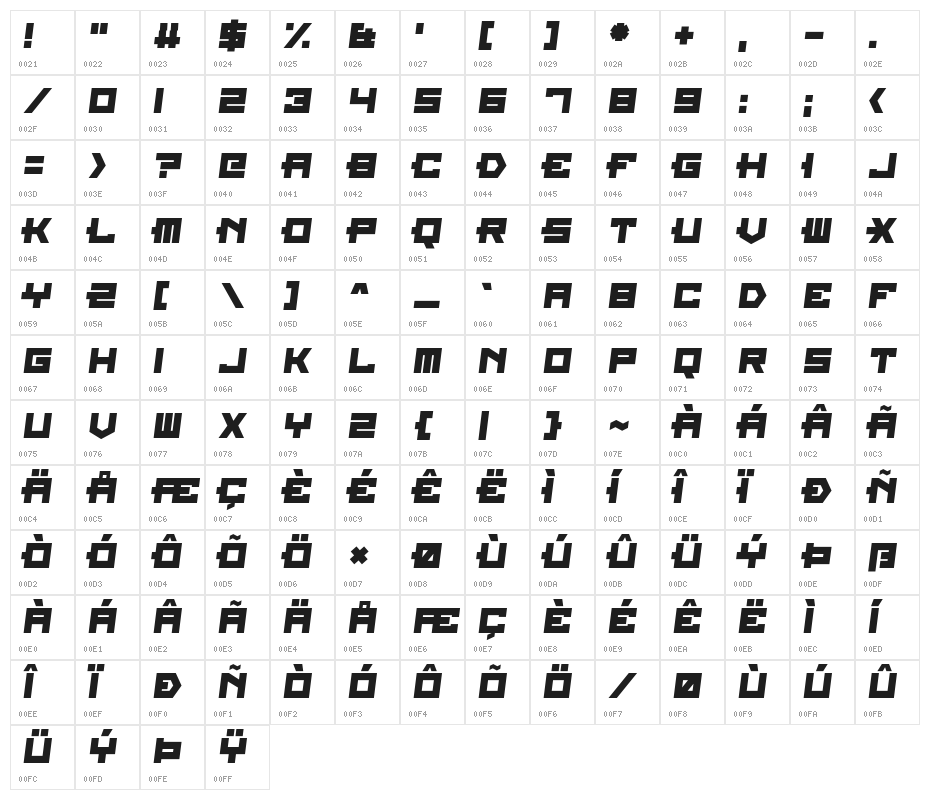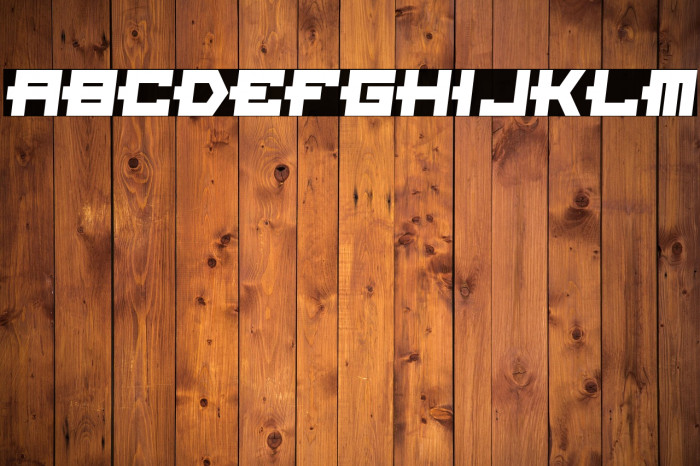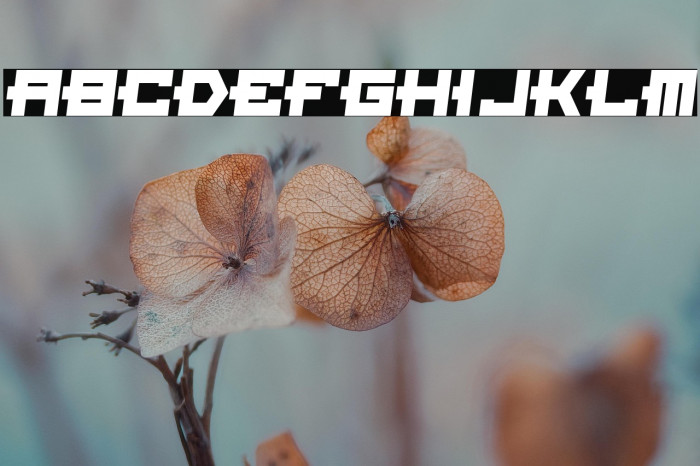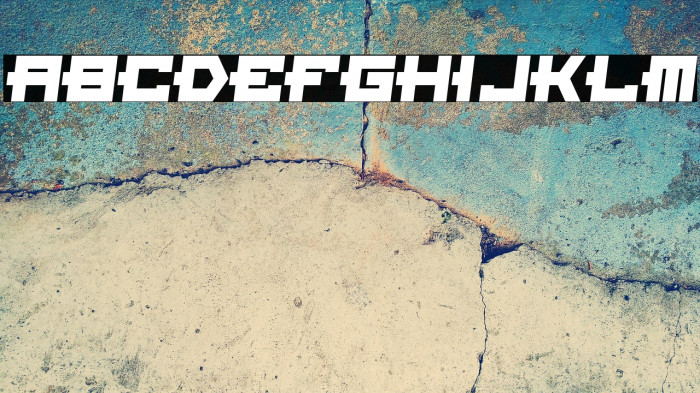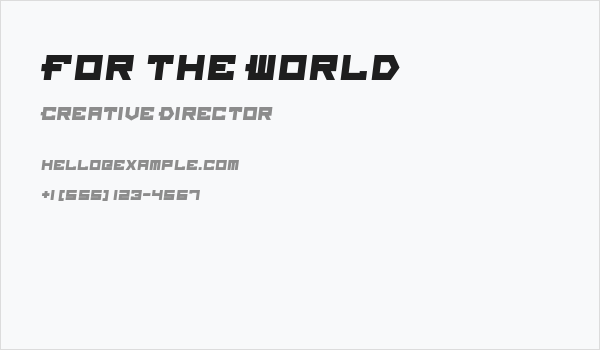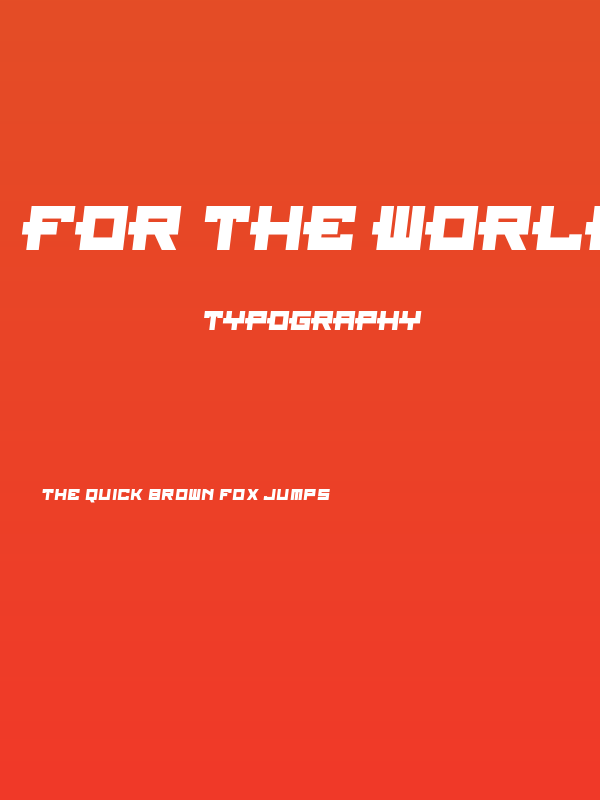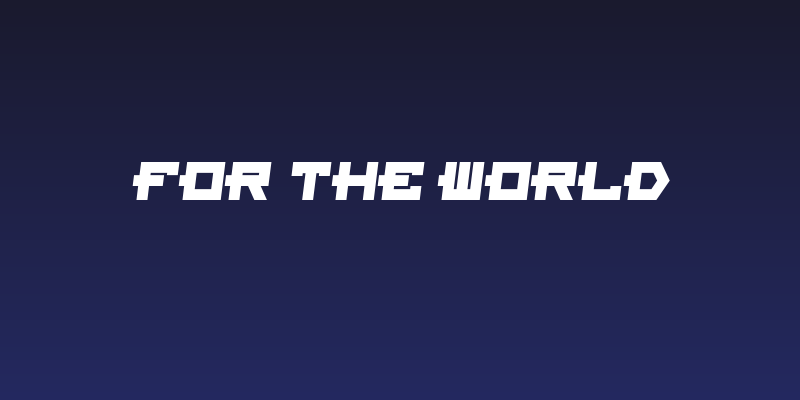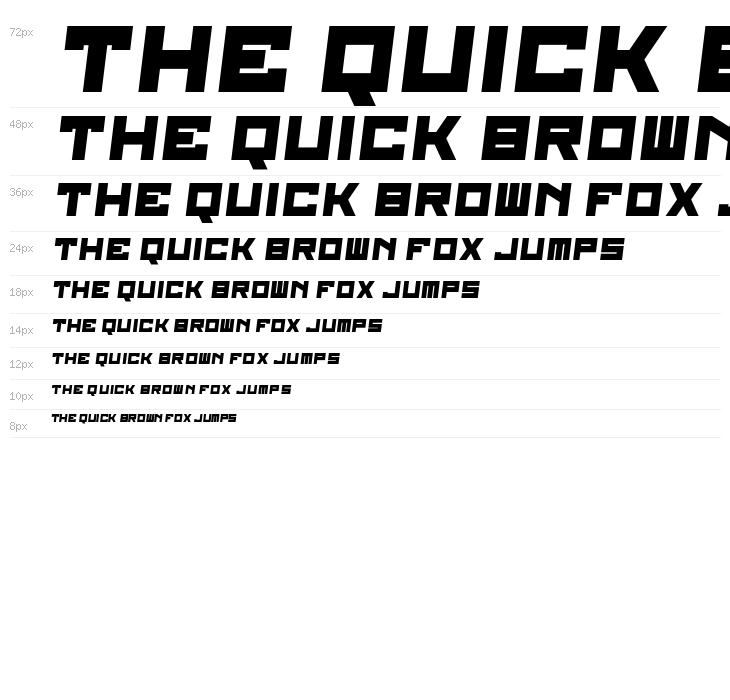
For The World Font
For The World Description
This font features a bold, angular design with a futuristic and geometric aesthetic. The characters are constructed with sharp edges and a blocky appearance, giving it a strong and assertive presence. The uppercase and lowercase letters maintain a consistent style, with a slight slant that adds a dynamic feel. The numerals and special characters follow the same design principles, ensuring uniformity across all glyphs. The font's unique style makes it stand out, suitable for projects that require a modern and edgy look.
| Proposed Projects | Ideal for sci-fi themed projects, video game titles, tech branding, and modern posters. |